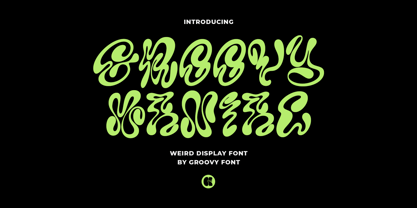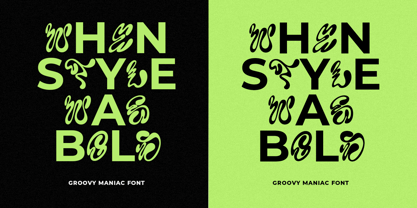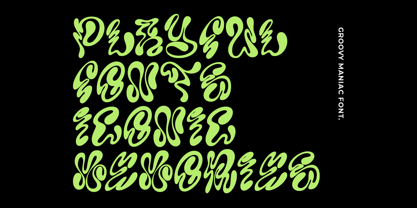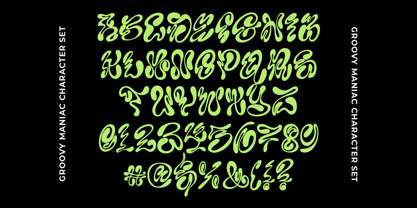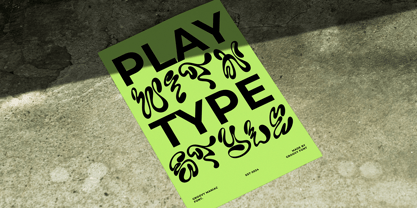
Groovy Maniac
by Groovy Font
The Groovy Maniac Font Family was designed by Ahmad Ginanjar Riyadi and published by Groovy Font. Groovy Maniac contains 1 styles. More about this family
Groovy Maniac is a delightfully weird display font that exudes a distinctive and cheerful feel. This decorative typeface features winding, curved characters that add a playful and unconventional touch to your designs.
With its unique and whimsical charm, Groovy Maniac is perfect for projects that call for a bit of quirky creativity. Let this font bring a sense of fun and individuality to your designs, making them stand out with its one-of-a-kind appeal!